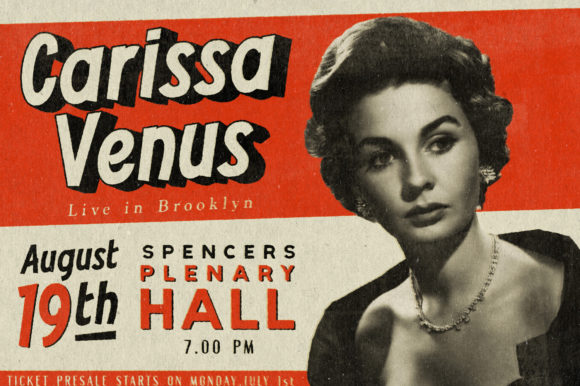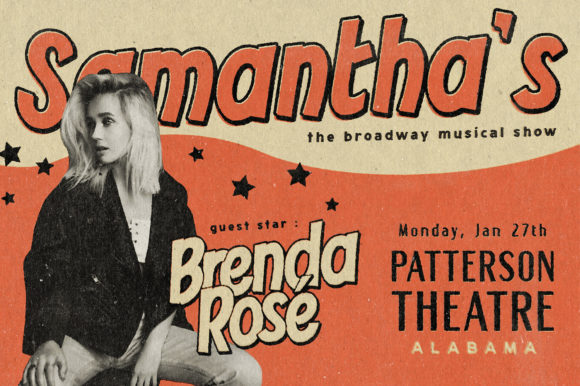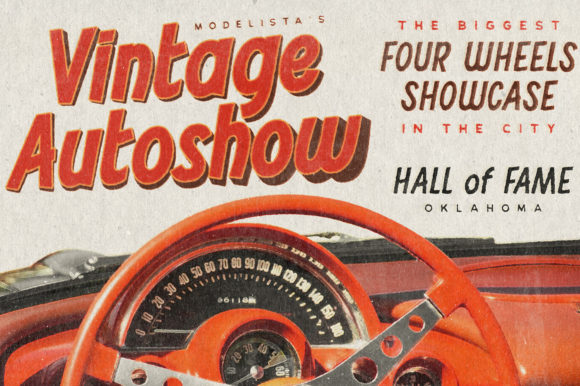
Introduction to Kehlin Font
Kehlin is a modern display font that is readable, bold and stylish.
It is defined by smooth curves and is perfect for fashion branding or editorial designs Add it confidently to your projects, and you will love the results.
Kehlin Font offers exceptional quality and versatility, making it a valuable addition to your design toolkit. Whether you’re creating for personal projects or commercial use, Kehlin Font delivers professional results.